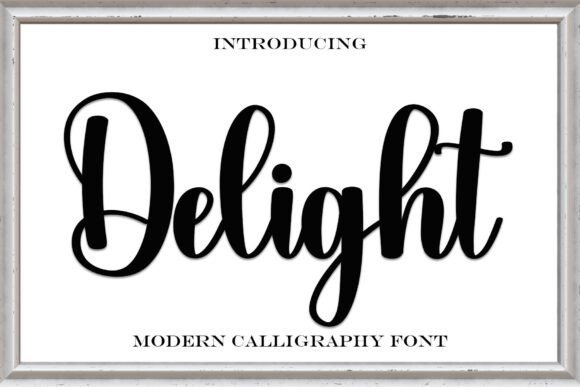
Unlock the Magic of Handwritten Elegance
As a designer, you know that moment when a project finally comes together – the perfect balance of color, texture, and typography. It’s a feeling of pure delight, isn’t it? But what if you could add an extra layer of sophistication to your designs, elevating them from great to truly exceptional? That’s where the Delight Font comes in – a stylish, handwritten font that captures the essence of timeless classic calligraphy.
With its impeccable form and contemporary atmosphere, Delight Font is the perfect addition to any design project. Whether you’re creating a wedding invitation, a brand logo, or a marketing brochure, this font will add a touch of elegance and class that’s sure to impress. As a designer, you know how valuable a versatile and high-quality font can be – and Delight Font delivers on both counts.
Delight Font Key Features
- Unique Characteristics: Delight Font features a unique blend of modern and elegant design elements, making it ideal for use in various creative projects, including branding, packaging, and advertising.
- Script and Language Support: The font supports a wide range of languages, including Latin, Cyrillic, and Greek scripts, making it a versatile choice for global design projects.
- Font Weight and Style: Delight Font is available in 3 different weights: Light, Regular, and Bold, allowing designers to choose the perfect weight to match their project’s tone and style.
Delight Font Review
Overall, I’m impressed with the Delight Font, a beautiful and elegant script font that’s perfect for adding a touch of whimsy to your designs. ✨
The Delight Font has a lot going for it. It’s playful, yet sophisticated, making it a great choice for a wide range of projects, from wedding invitations to children’s book covers. ✨ The font’s intricate details and flowing lines create a sense of movement and energy, drawing the viewer’s eye through the text. ✨
While the Delight Font is a great addition to any designer’s toolkit, there are a few limitations to be aware of. ⚠️
- One of the main drawbacks is the font’s size. At larger sizes, the Delight Font can become difficult to read, especially for longer blocks of text. ⚠️
- Additionally, the font’s complexity can make it challenging to pair with other fonts, as it may overwhelm simpler typefaces. ⚠️
- Finally, the Delight Font may not be the best choice for body text, as it’s best suited for headlines and titles. ⚠️
Overall, the Delight Font is a beautiful and versatile font that’s sure to delight your clients and add a touch of magic to your designs. While it may have a few limitations, it’s definitely worth adding to your font collection.
The Delight Font is ideal for:
- Creating eye-catching headlines and titles.
- Designing invitations and event materials.
- Developing branding and marketing materials.
- Adding a touch of elegance to presentations and documents.